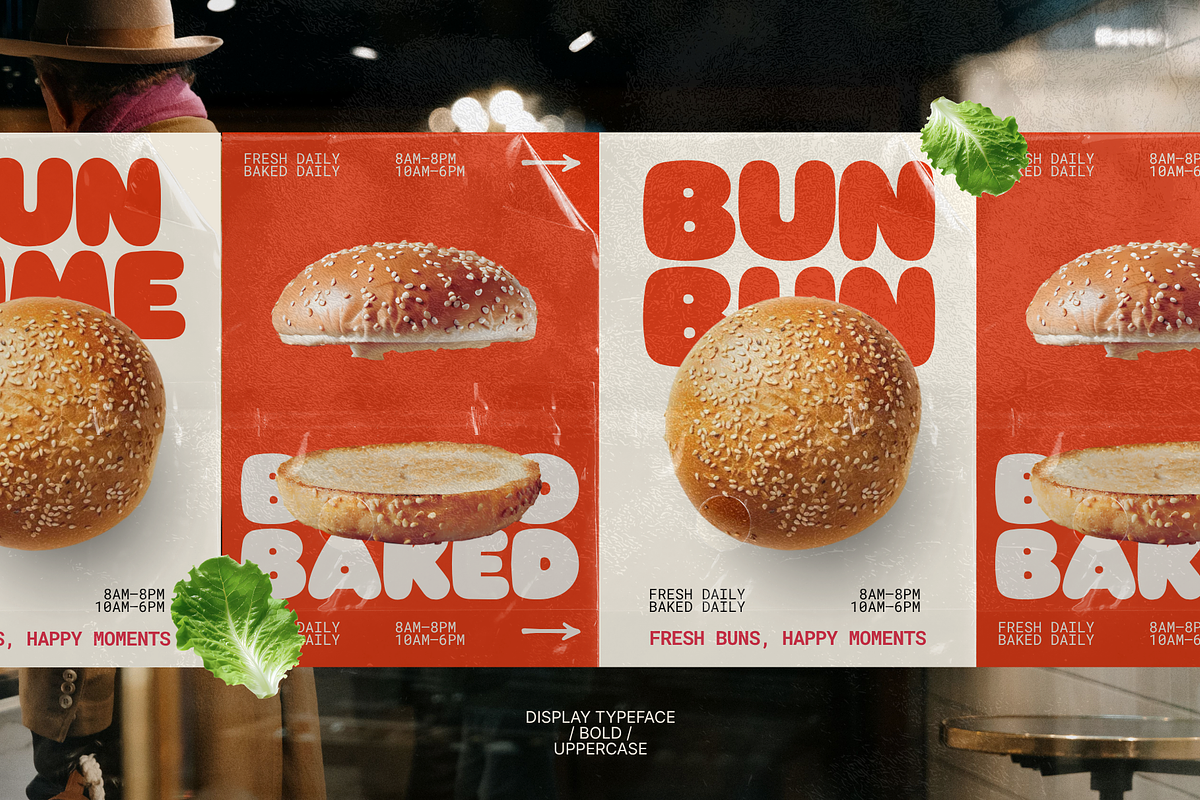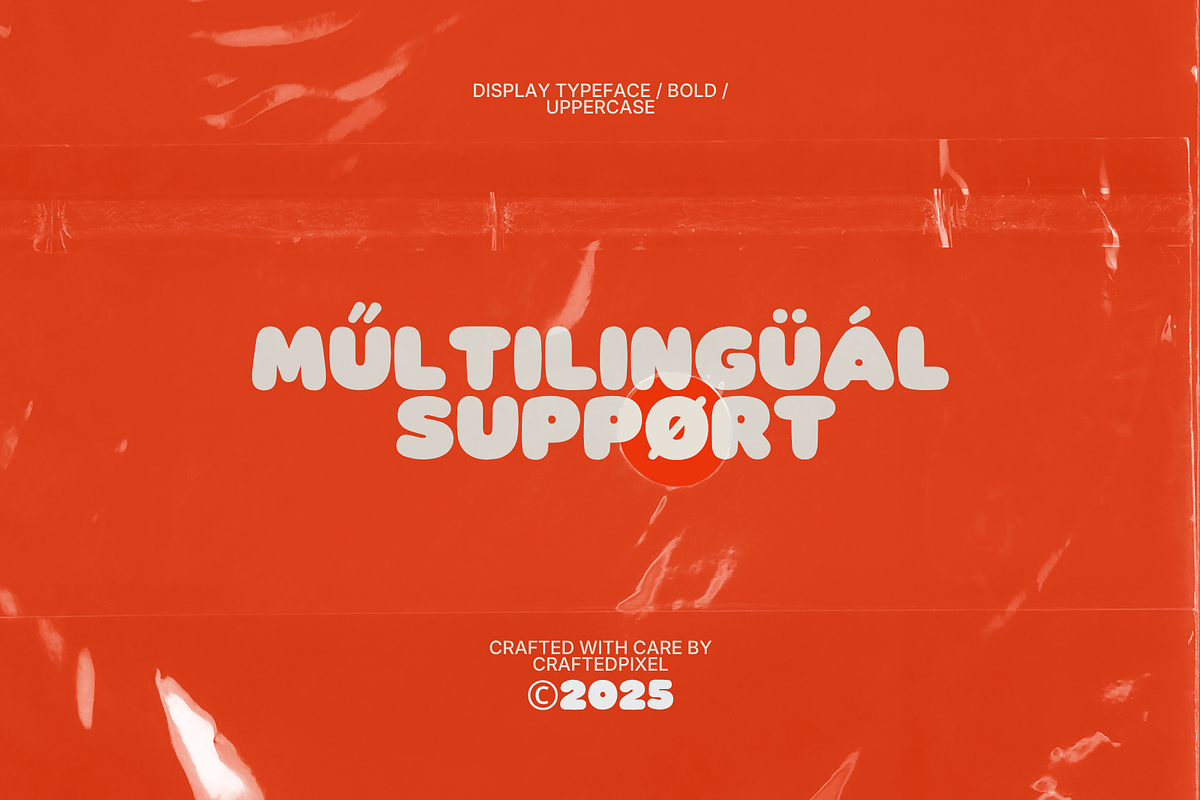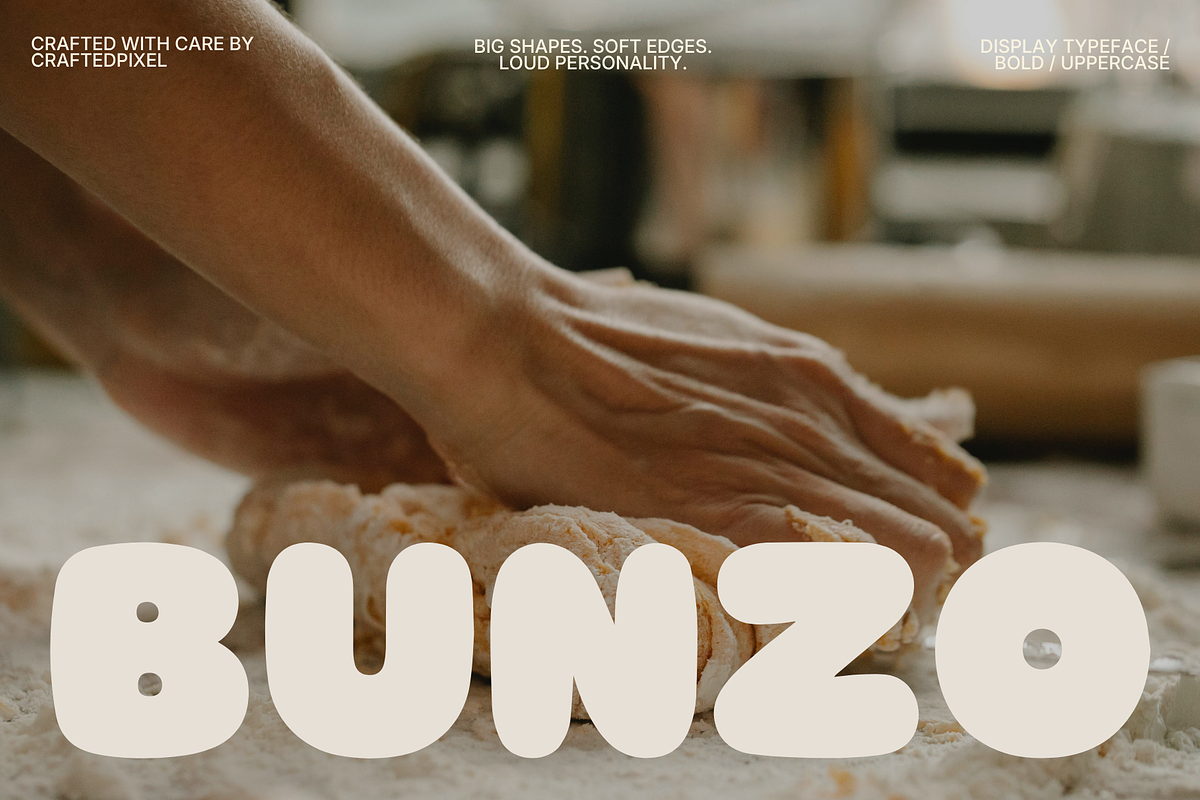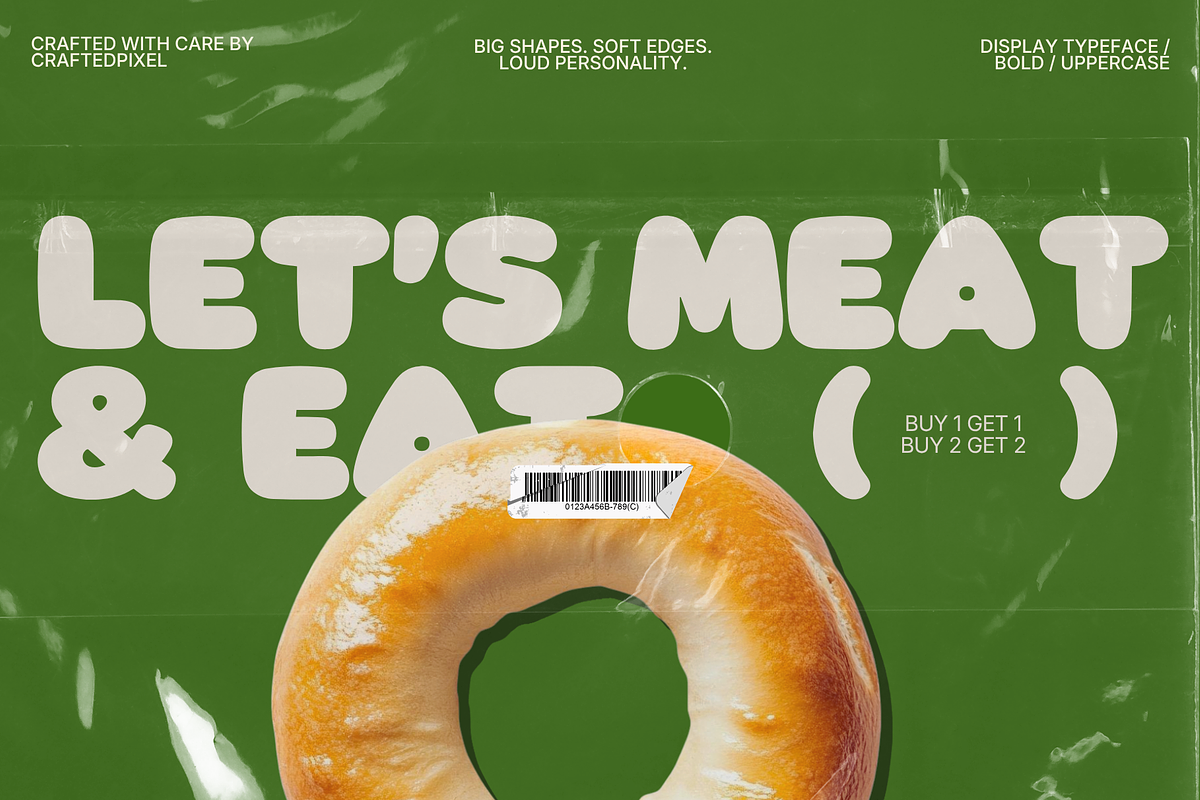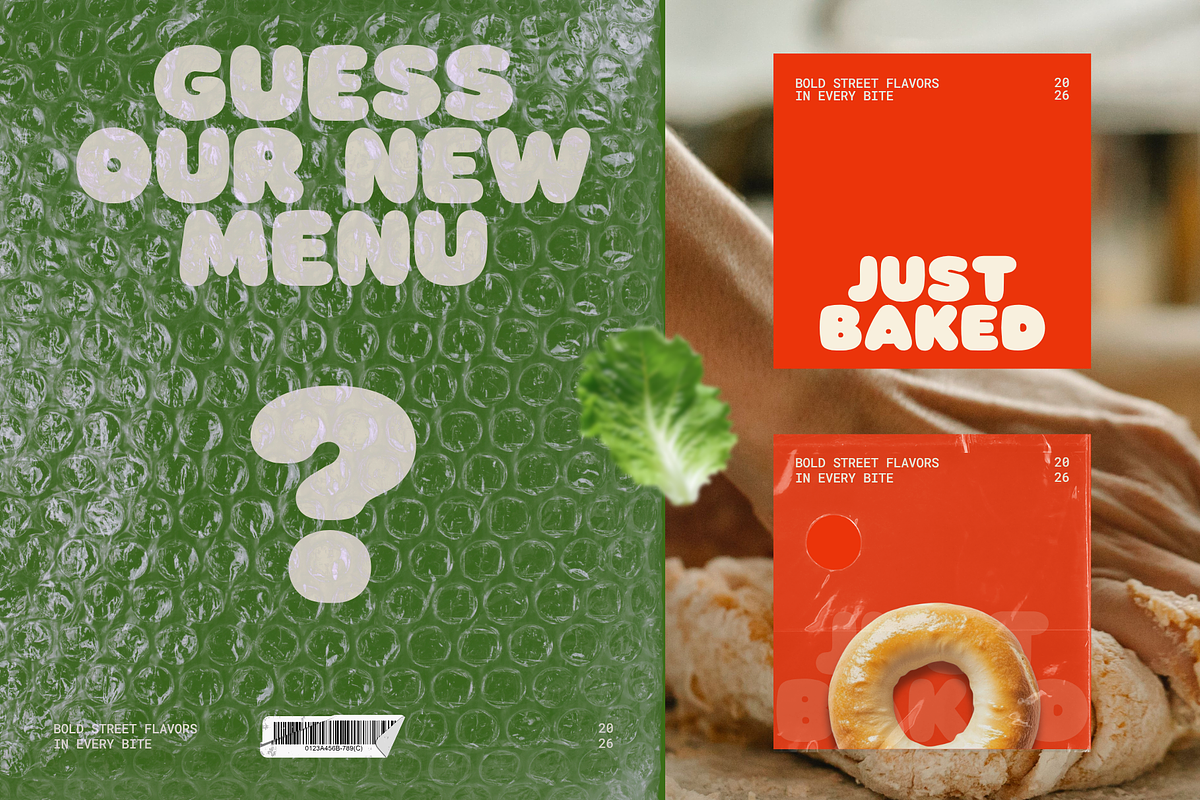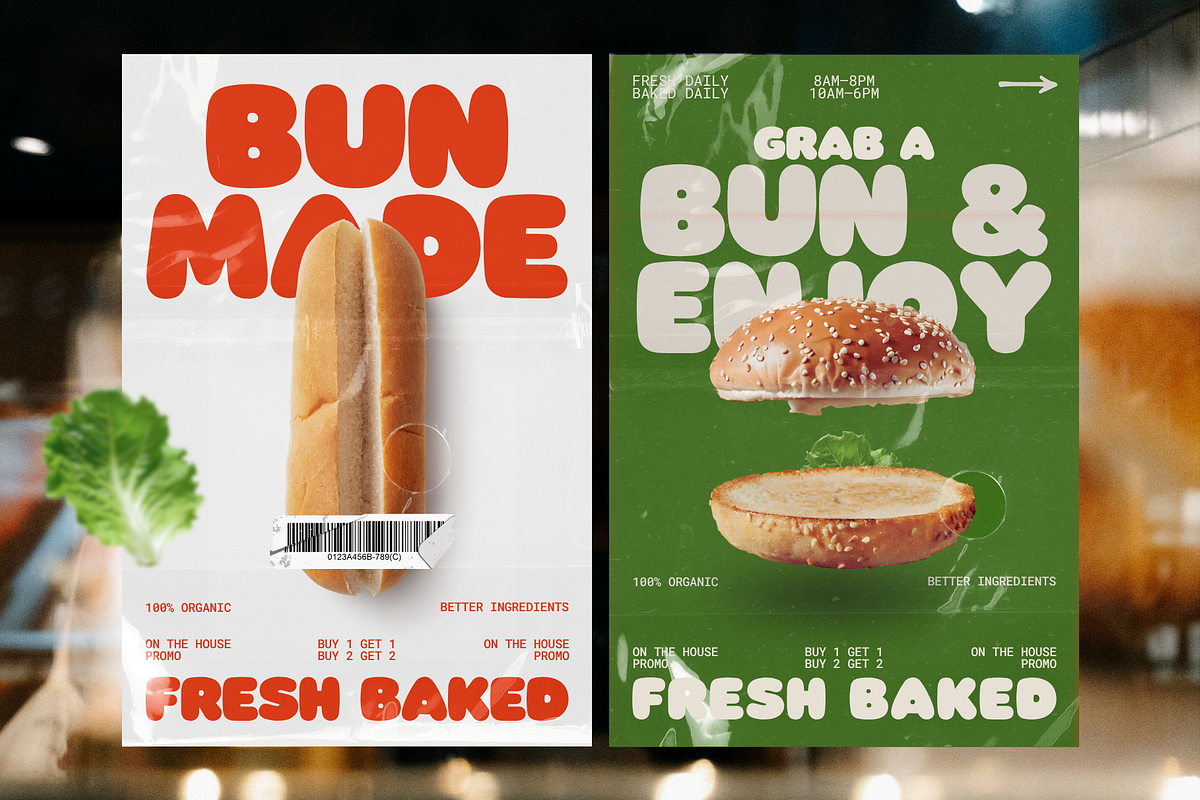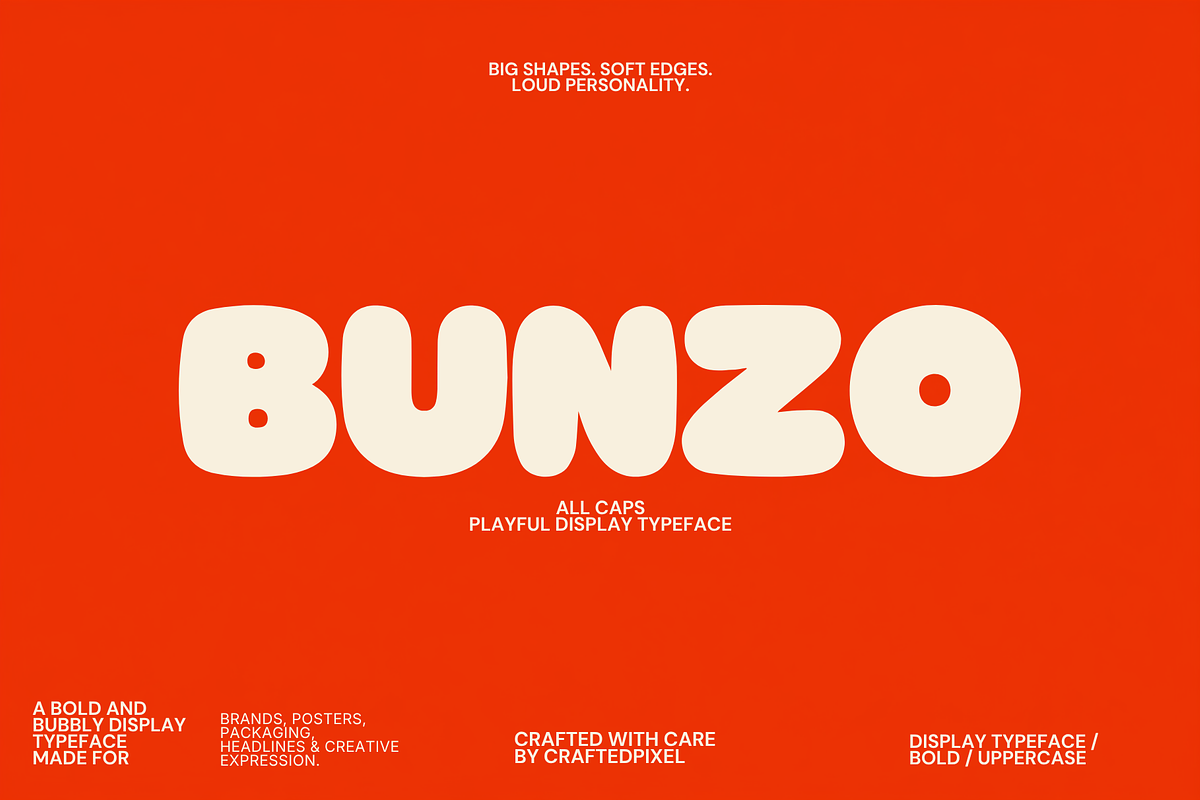
Bunzo – Display Sans Serif Font
Bunzo is a modern display sans serif font designed with bold, clean, and distinctive uppercase letterforms. Its strong visual character makes it ideal for creating impactful headlines, branding, posters, editorial layouts, and contemporary typography.
With its uppercase-only design, Bunzo brings a confident and graphic look to your projects. Use it for logos, titles, advertising, packaging, social media graphics, merchandise, and other creative designs where typography needs to stand out.
Display Sans Serif Font
Uppercase Letters
Numbers Included
Symbols & Punctuation Included
Latin Character Set
Bunzo is a versatile display font for designers looking for a clean and contemporary typeface with a strong visual presence.